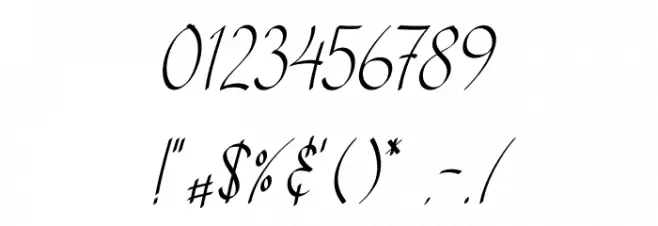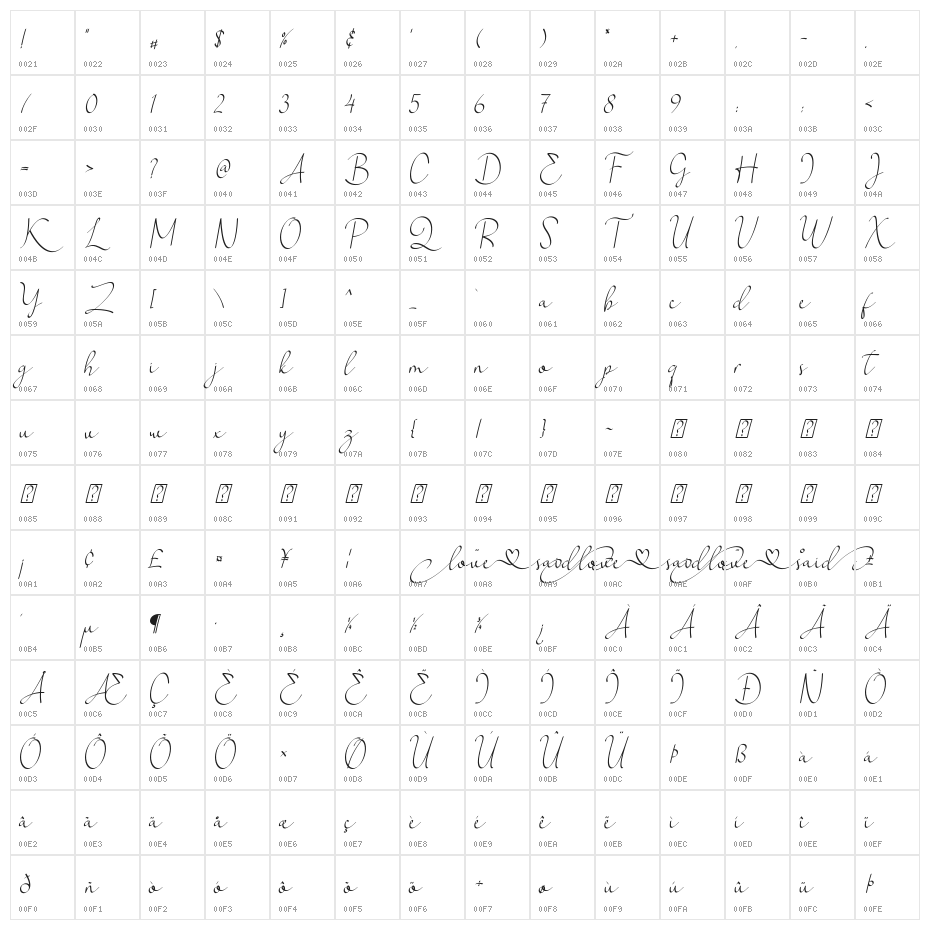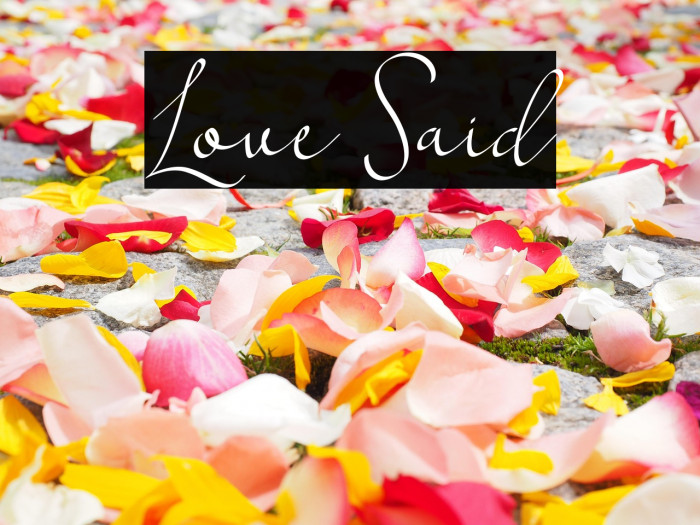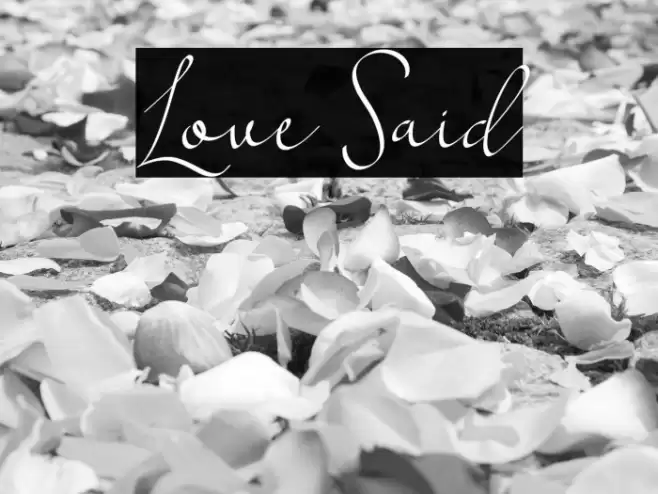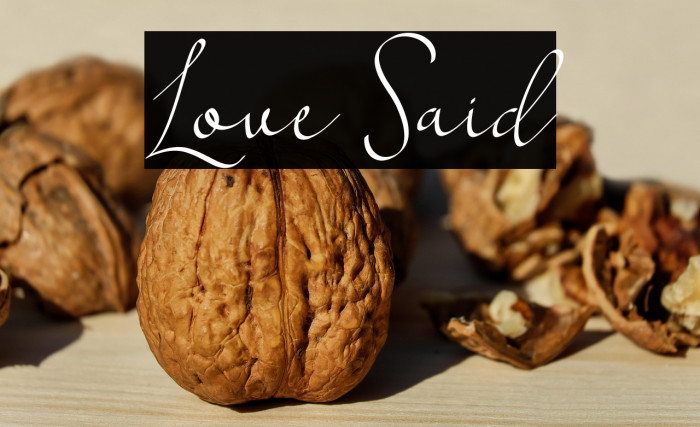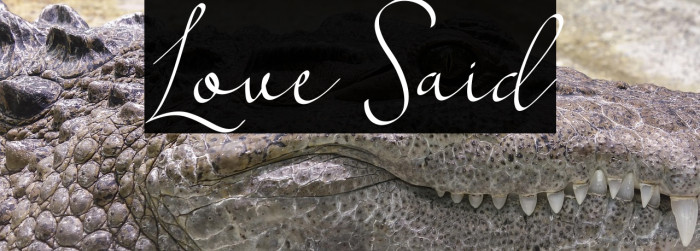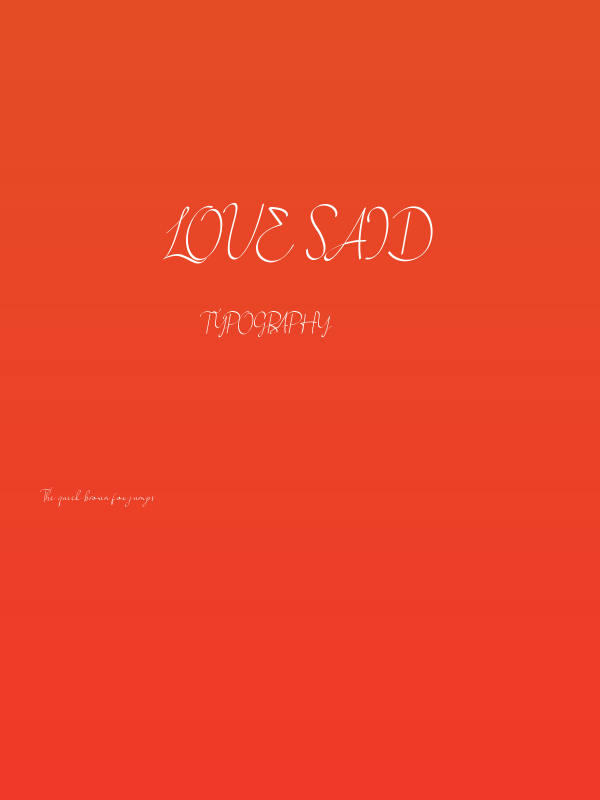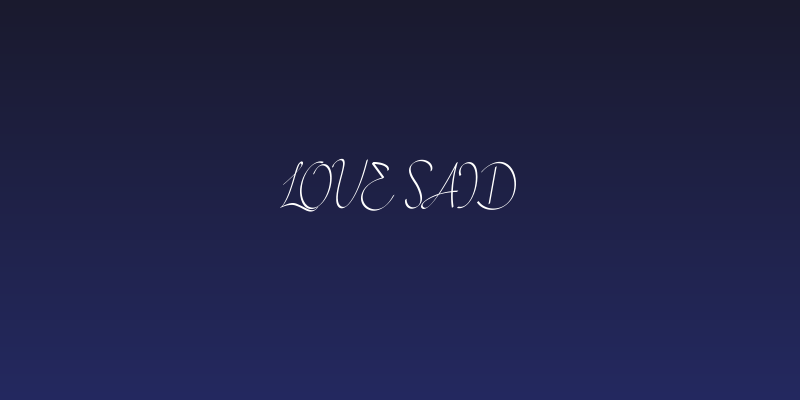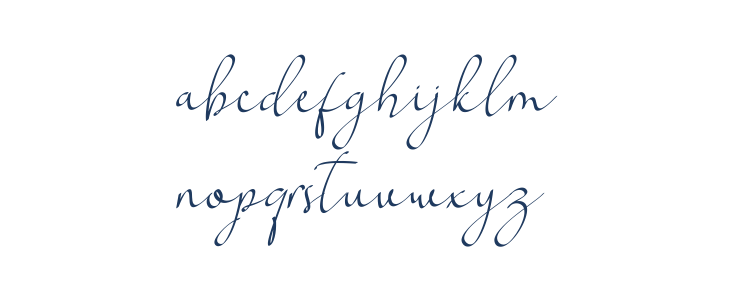
Love Said Font
Love Said Description
This elegant script font features flowing, cursive strokes that convey a sense of grace and sophistication. The uppercase letters are tall and slender, with delicate loops and swirls that add a touch of flair. The lowercase letters maintain a consistent style, with smooth connections between characters that enhance readability. The numerals are designed to match the overall aesthetic, with a slight slant and refined curves. Special characters are thoughtfully integrated, ensuring versatility in various design contexts. The font's overall appearance is both stylish and timeless, making it suitable for a wide range of applications.
| Proposed Projects | Ideal for wedding invitations, elegant branding, greeting cards, and upscale packaging. |